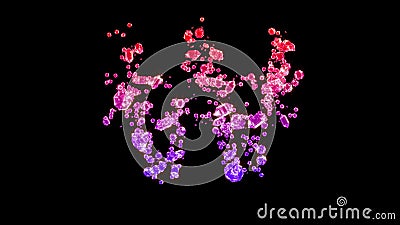
Fancy Lux Gems Font, Red And Rose Won Sign, Isolated - Object 3D Rendering Royalty-Free Stock Image
Fancy glamorous jewels font, red and pink won sign, isolated - object 3D rendering